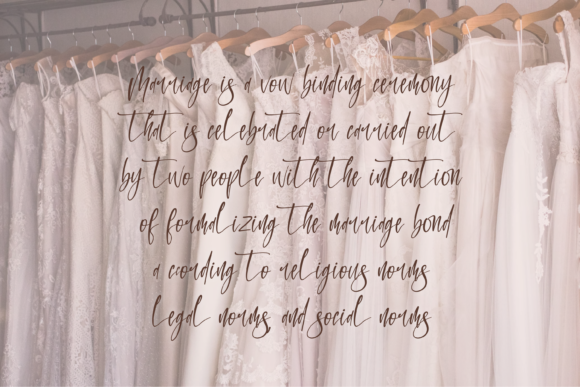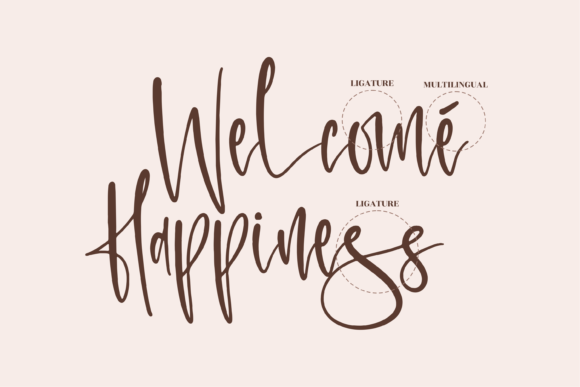
About Montain Fight Font
Montain Fight is a beautiful and refined script font. It has a classy, elegant and modern look that can be used for logos, branding, invitations, stationery, wedding designs, social media posts, and much more!